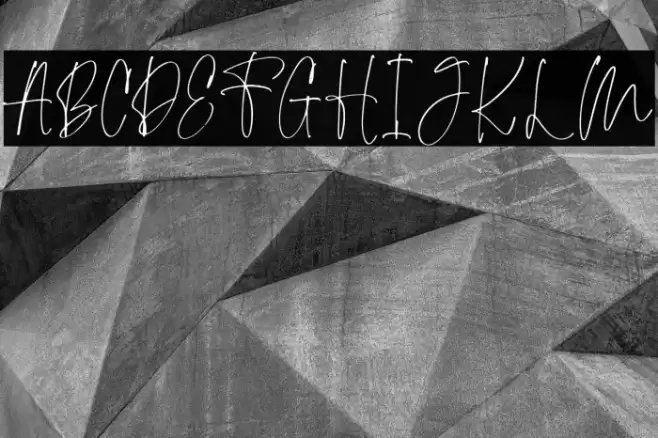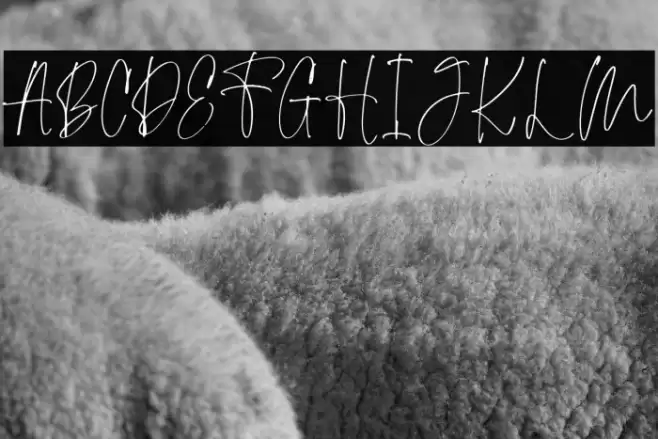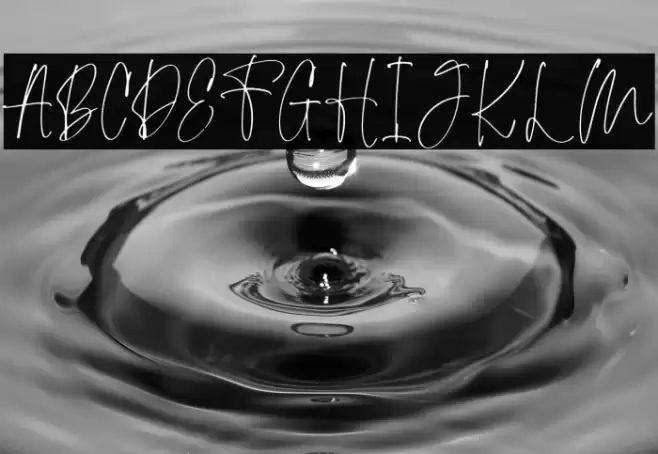
MellenyaFREE Font
MellenyaFREE Description
This font exudes a casual and artistic flair, characterized by its handwritten style that mimics the fluidity and spontaneity of natural handwriting. The letters are elegantly elongated with a slight slant, giving it a dynamic and lively appearance. The strokes are thin and consistent, adding to its delicate and sophisticated look. The uppercase and lowercase letters maintain a cohesive style, with some playful loops and curves that enhance its charm. This font is perfect for projects that require a personal touch, such as invitations, greeting cards, or branding materials that aim to convey creativity and warmth.
A casual, handwritten font with elegant, elongated letters and a dynamic, lively appearance from Uncategorized fonts.
- Font: MellenyaFREE
- Proposed Projects: Ideal for invitations, greeting cards, personal branding, and creative projects.
- Weight: Light
- Overall Style: Casual, Artistic
- Use Case: Invitations, Greeting cards, Personal branding